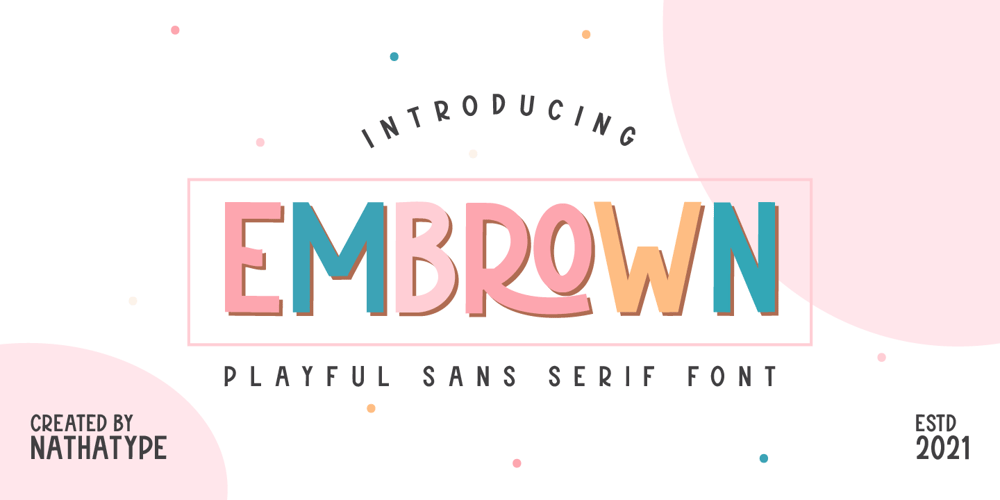
Embrown Font Family was designed by Donis Miftahudin and published by Nathatype. Embrown contains 2 styles and family package options. Ready to enhance your branding? Looking for that “something” that’ll make your audience go WOW and clients get on board immediately? Ready to enhance your branding? Looking for that “something” that’ll make your audience go WOW and clients get on board immediately? Embrown-A Playful Sans Serif FontEmbrown is a typeface that is made all characters in uppercase. An excellent choice to add colorful touch. This typeface with cheerful style looks very interesting for loads of different projects and promotions. A great all-in-one package for your logo, book cover, poster, t-shirt, branding, and advertisement needs.Features: Ligatures Bonus Ornament PUA Encoded Numerals and Punctuation Thank you for downloading premium fonts from Nathatype